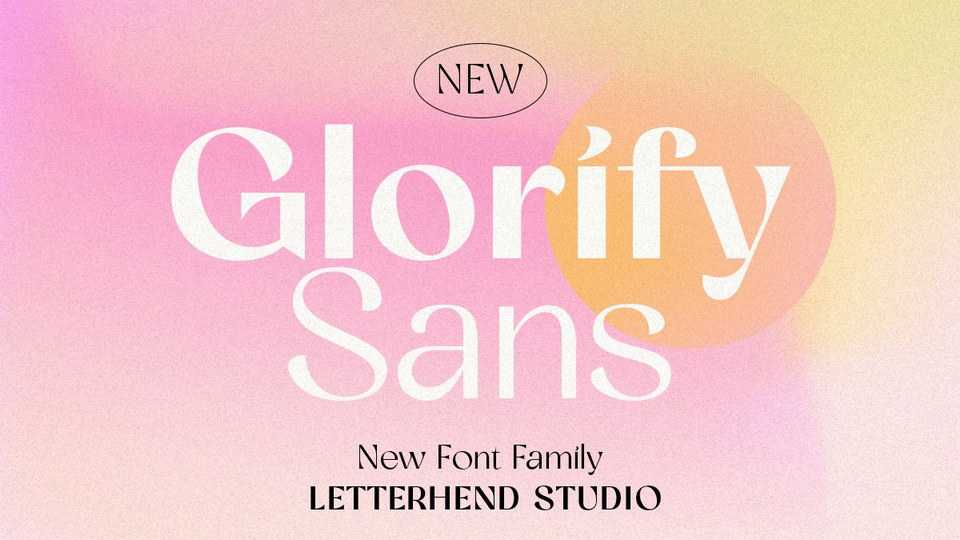
Download Glorify Sans font, a sophisticated sans serif typeface with unique letterforms. Glorify Sans can be perfectly applied to various formal designs such as invitations, labels, logos, magazines and more.